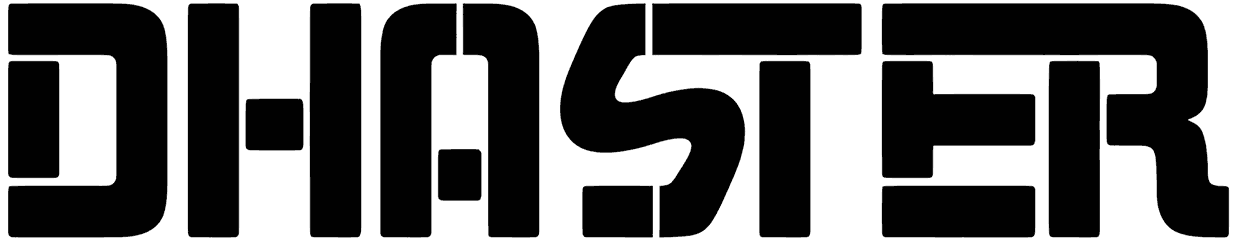
Dhaster Font
Dhaster font is for those who don’t know how to create a sci-fi and futuristic atmosphere. This modern stencil font allows you to create video game poster designs and robotic and mechanical animations as quickly as possible without interruption and spending a lot of time.
Also, the good news is that you can use this steel font on street signs and billboards, and be sure that the audience will be attracted to your products with its bold characters.